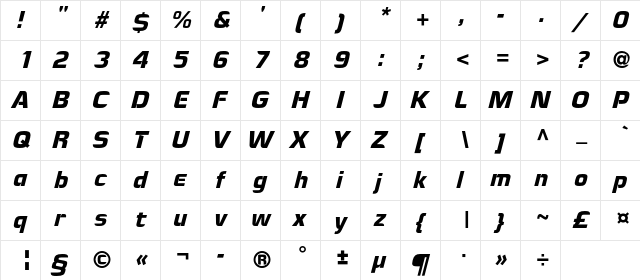
Mania-Oblique Regular
Design Context for Mania-Oblique Typeface
Mania-Oblique takes a measured approach to typography — its balanced proportions and neutral character make it a reliable workhorse for both digital and print work. Its italic angle brings a sense of urgency and motion to the letterforms.
Pro Tip: Use Mania-Oblique for emphasis, pull quotes, and subheadings where its slanted energy can add rhythm to the layout.